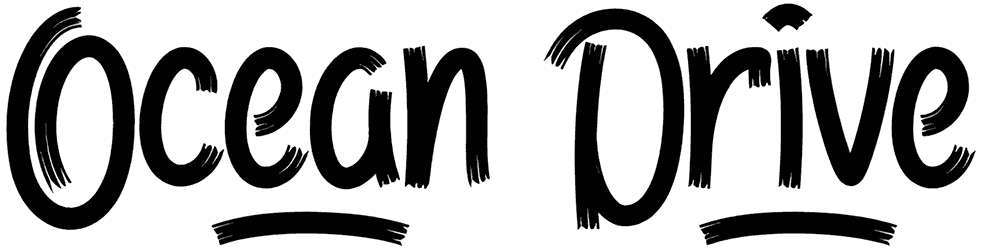
Ocean Drive Font
Since each font tells a different story, and in this regard, a magical script font such as Ocean Drive comes with rounded and tilted characters.
Aside from not supporting numbers, this masterpiece provides two distinctive styles and broadens your horizons in the stage of designing billboards, magazines, applications, stickers, or social media posts. The number of handwritten fonts available on the RB archive exceeds all of your imagination, so don’t hesitate to visit our stock.